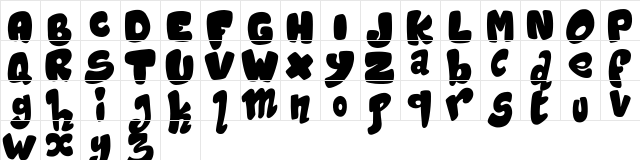
Magic Sound Regular
| Designer | Imagex |
Design Context for Magic Sound Typeface
Magic Sound is a composed and adaptable typeface that performs quietly and consistently across a wide range of design contexts.